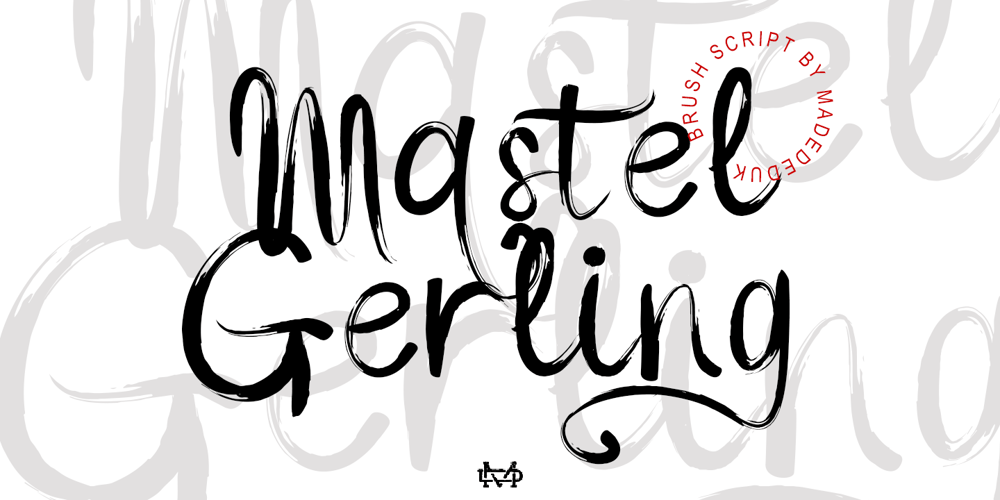
Mastel Gerling Font Family was designed by madededuk and published by madeDeduk. Mastel Gerling contains 1 styles and family package options. Mastel Gerling is a modern handwritten Brush. This font perfect for poster design, book covers, merchandise, fashion campaigns, newsletters, branding, advertising, magazines, greeting cards, album covers, and quote designs and more.Feature Uppercase & Lowercase Number & Symbol International Glyphs Multilingual support Alternative Ligature Thanks so much for checking out my shop and feel free to drop us a message any time and follow my shop for upcoming updates